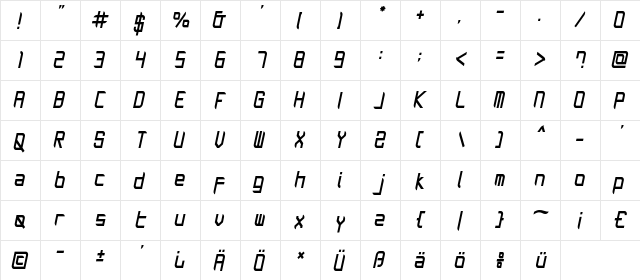
TASIQ Italic
Design Context for TASIQ Typeface
TASIQ is a composed and adaptable typeface that performs quietly and consistently across a wide range of design contexts. The dynamic lean of this cut emphasises speed and emphasis in any layout.
Pro Tip: Use TASIQ for emphasis, pull quotes, and subheadings where its slanted energy can add rhythm to the layout.